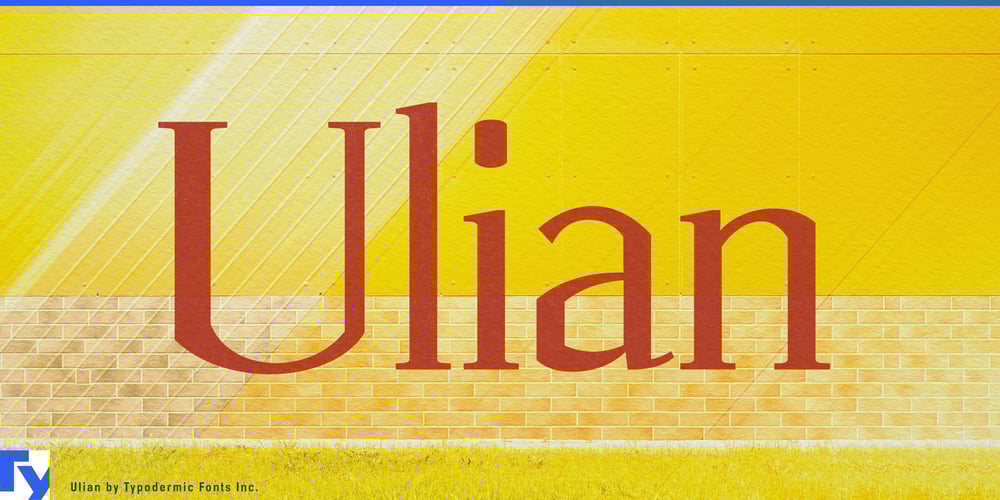
Ulian Font Family was designed by Ray Larabie and published by Typodermic. Ulian contains 4 styles and family package options. Ulian: a typeface that tantalizes the visual palate with the complexity and depth of a fine vintage. Like a masterfully crafted wine, this font family offers a bouquet of design elements that will intrigue even the most discerning typographic sommelier.At first glance, Ulian presents with the bold, structured body of a robust Cabernet Sauvignon. Its distinctive flat sides stand tall and confident, reminiscent of the straight walls of a perfectly aged wine barrel. These strong lines provide a foundation as reliable as the terroir of a renowned vineyard. But as you allow your eyes to linger, you’ll discover Ulian’s subtle notes of modernity. The curved serifs and varying stroke thicknesses dance across the palate like the unexpected hints of fruit in a complex red blend. These contemporary flourishes add a layer of sophistication that elevates Ulian from a mere typeface to a true typographic experience.The incorporation of squared geometric elements brings a crisp, refreshing quality to Ulian, much like the clean finish of a well-balanced Chardonnay. This modern twist cuts through the boldness, creating a harmonious blend of traditional strength and contemporary elegance. Ulian’s range of variants—Regular, Italic, Bold, and Bold-Italic—offers a full flight of typographic options. Each style brings its own character to the table, allowing designers to pair the perfect weight with their project, much as a sommelier would recommend the ideal wine for each course.For the true connoisseur, Ulian offers old-style lowercase numerals in OpenType-capable applications. This feature is like discovering a hidden reserve in a wine cellar—a delightful surprise that adds depth and character to your typographic composition. Ulian’s language support is as extensive as a well-stocked wine cellar. From Afrikaans to Zulu, this typeface speaks the language of design fluently across cultures, proving that great typography, like great wine, knows no borders.Are you ready to uncork the full potential of your designs? Ulian awaits, its character as rich and complex as a vintage Bordeaux. Download it today and let your projects breathe with the refined air of typographic excellence. Remember, in the world of design, as in the world of wine, it’s the subtle notes that often leave the most lasting impression. With Ulian, you’re curating an experience that will linger on the visual palate long after the first glance.